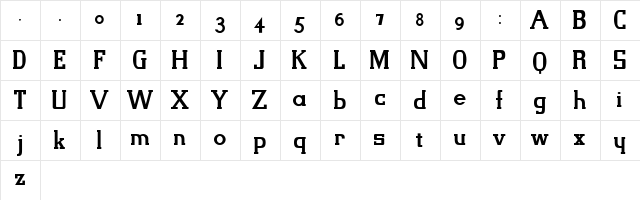
SlabFourRounded Regular
Design Context for SlabFourRounded Typeface
SlabFourRounded combines the readability of serif typography with the visual weight of a slab construction, resulting in a typeface that feels both authoritative and approachable.
Works well in editorial design, news publishing, impactful branding, and poster typography.
Pro Tip: Try SlabFourRounded set tight in headlines for a classic editorial feel. Its slab serifs create strong horizontal rhythm that anchors a page layout.